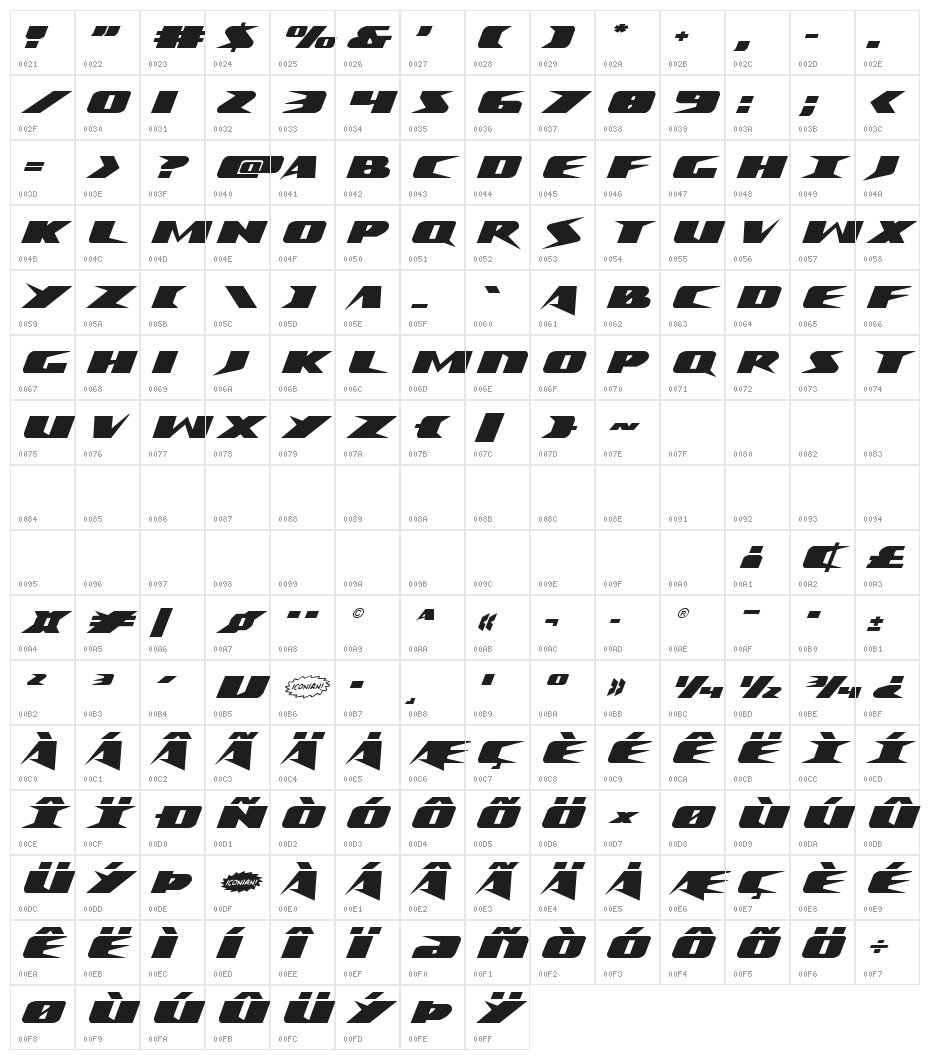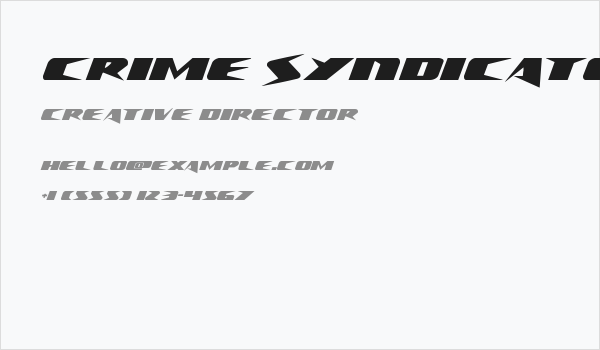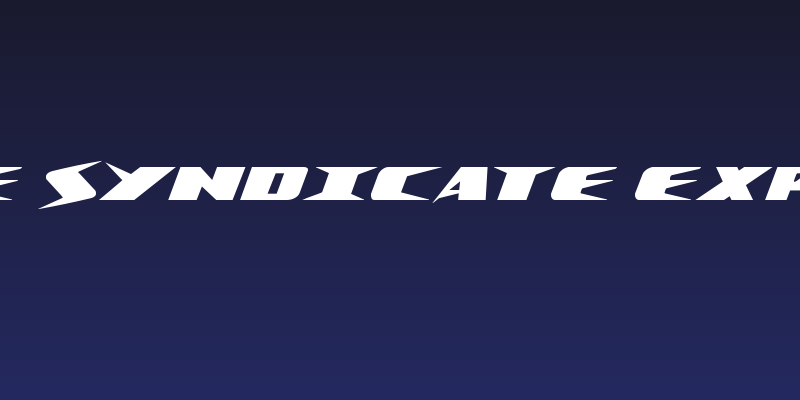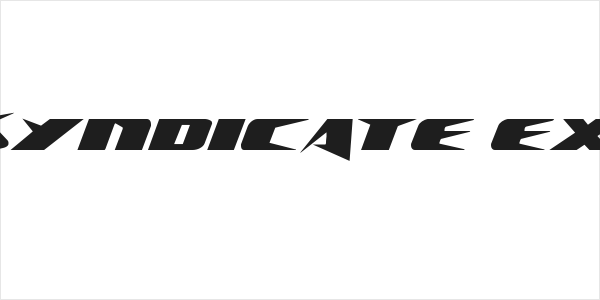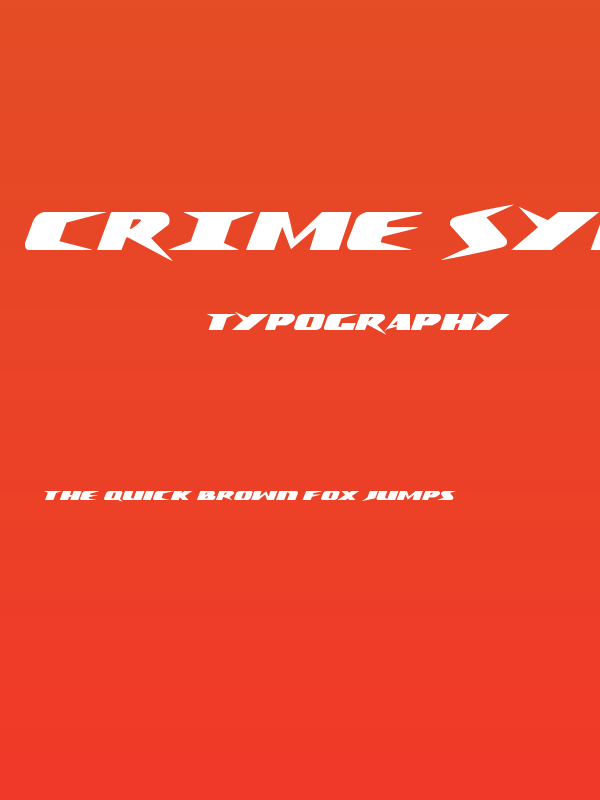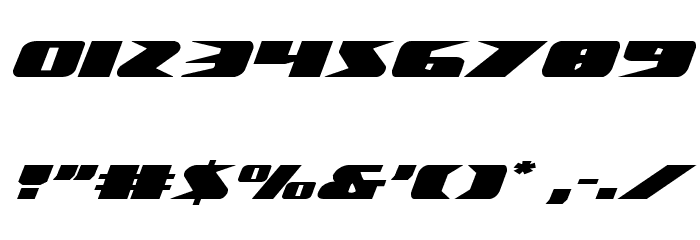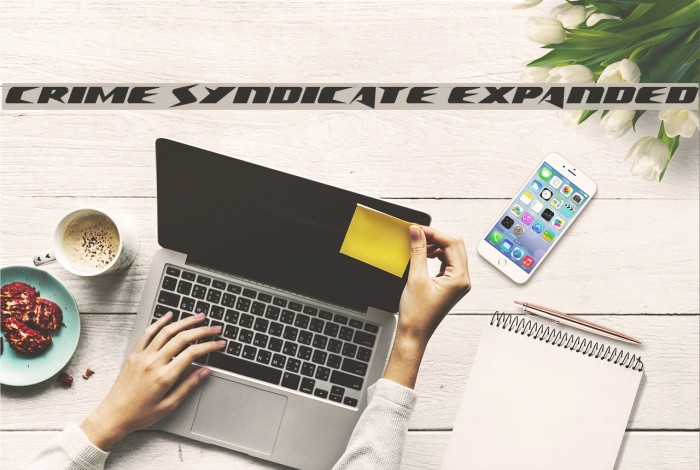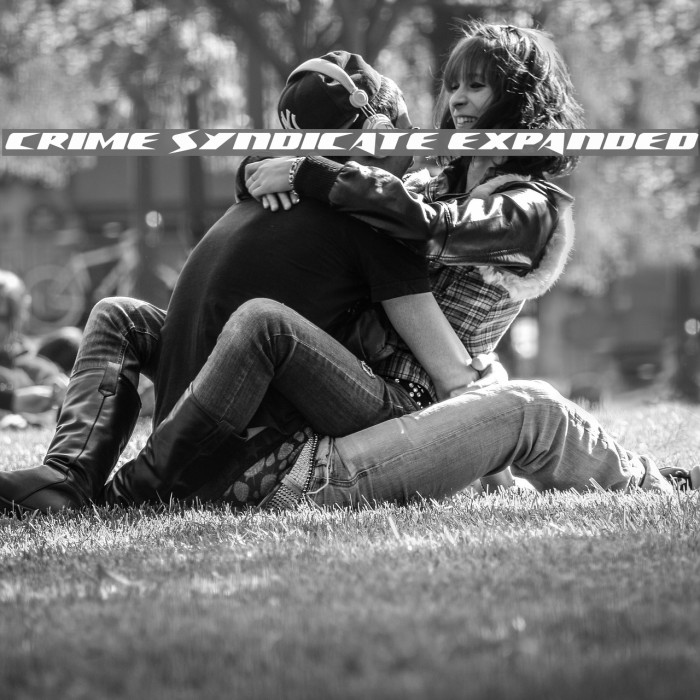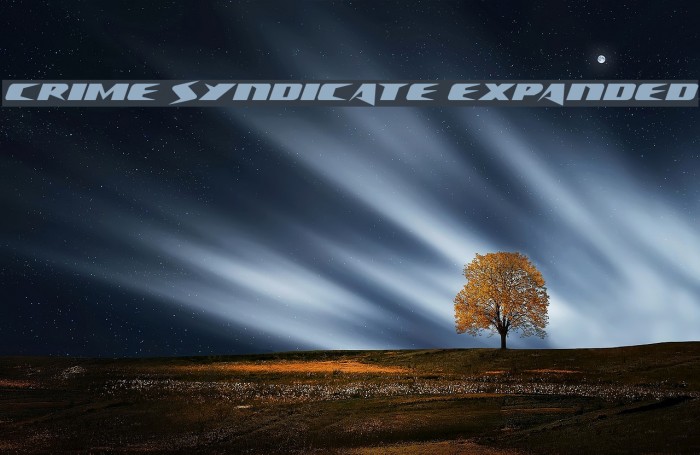
Crime Syndicate Expanded Font
Crime Syndicate Expanded Description
This font features a bold and dynamic design with sharp, angular edges and a futuristic aesthetic. The characters are heavily stylized, with a distinct slant and aggressive cuts that give them a sense of motion and energy. The uppercase and lowercase letters maintain a consistent style, with the lowercase being slightly more compact. The numbers and special characters follow the same design principles, ensuring a cohesive look across all glyphs. The font's unique style makes it stand out, making it ideal for projects that require a strong visual impact.
| Proposed Projects | Ideal for sci-fi themed designs, video game titles, movie posters, and branding that requires a modern and edgy look. |